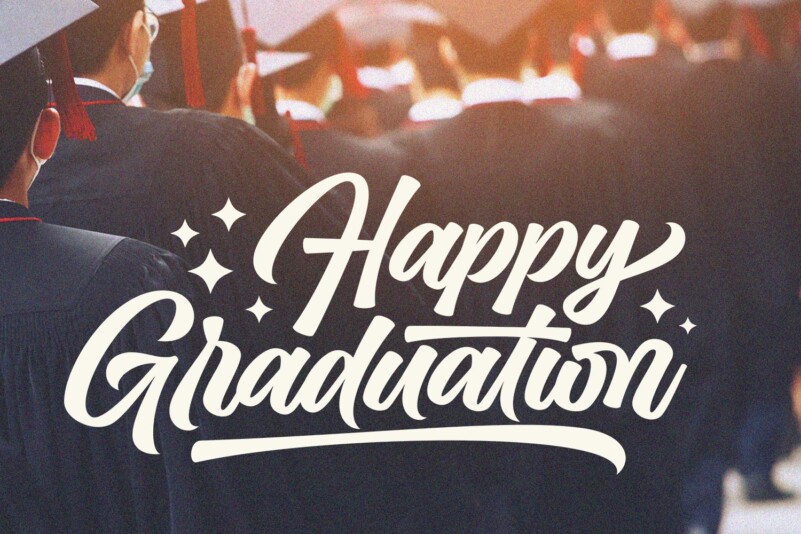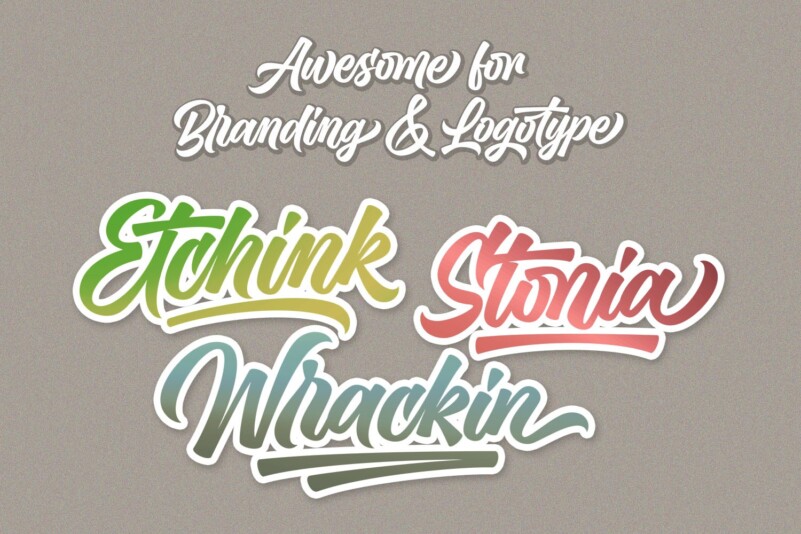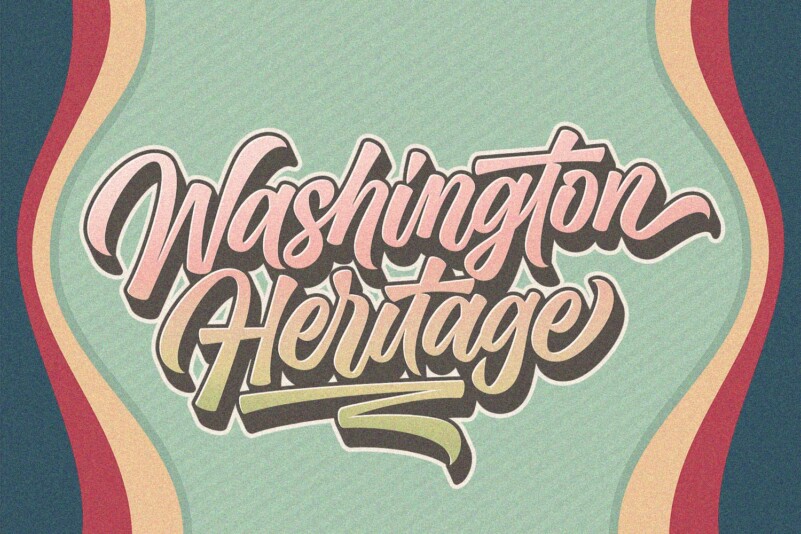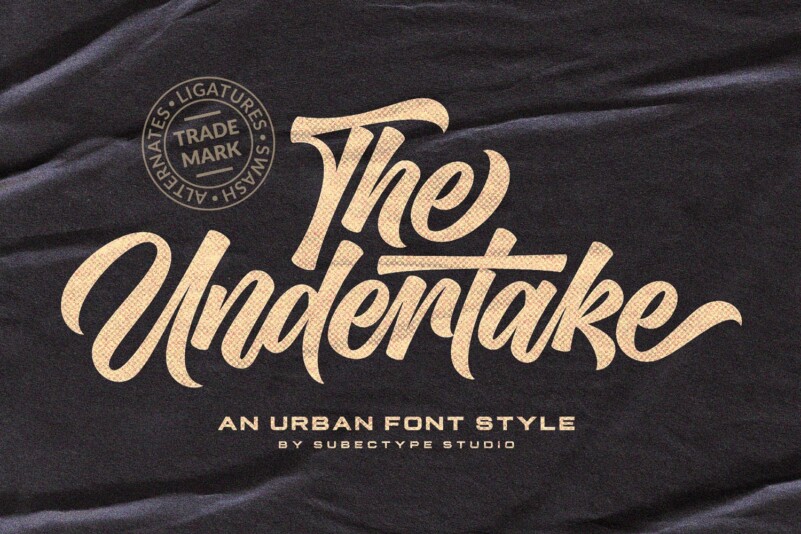
Sunday Midnight Font
Sunday Midnight Font is an elegant retro bold script typeface from designer Subectype. Inspired from lettering typography style and vintage Looks in the 70’s and 80’s. This font is perfect for: Clothing design, Fashion, Apparel, shirts, retro designs, procreate, stickers, logos, branding, greeting cards, Cricut projects, posters, magazines, social media, prints, Silhouette, Corjl, 70s, 80s, 90s retro design font, party, bissiness, iPad, Groovy Design, Decor Design, DIY craft,vibtage design and more!